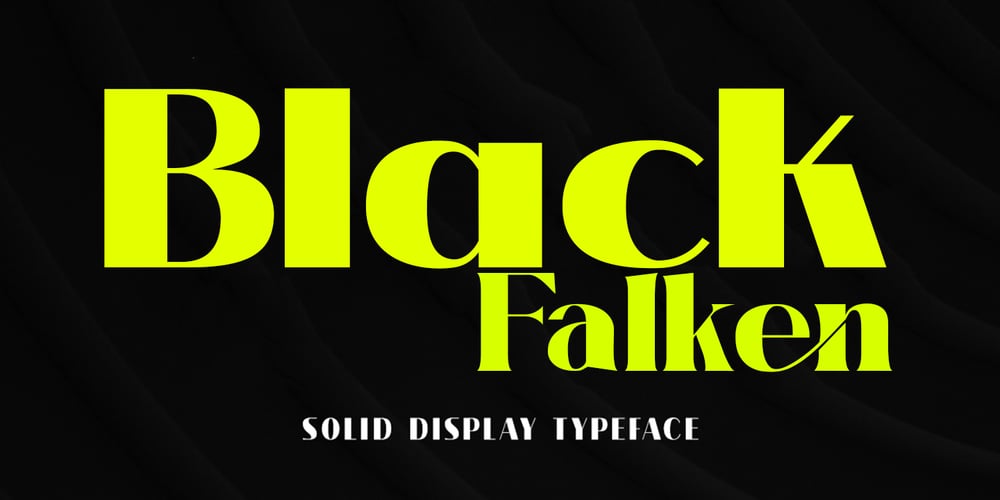
Black Falken Font Family was designed by Yusliana M Isa and published by Gian Studio. Black Falken contains 1 styles and family package options. Black Falken is my new elegant serif font that will give your projects a touch of luxury and style. It’s perfect for logotypes, branding, monograms and wedding invitations, blog headlines, and more. Browse through all the previews and get as inspired as I was when creating this font.Thanks.